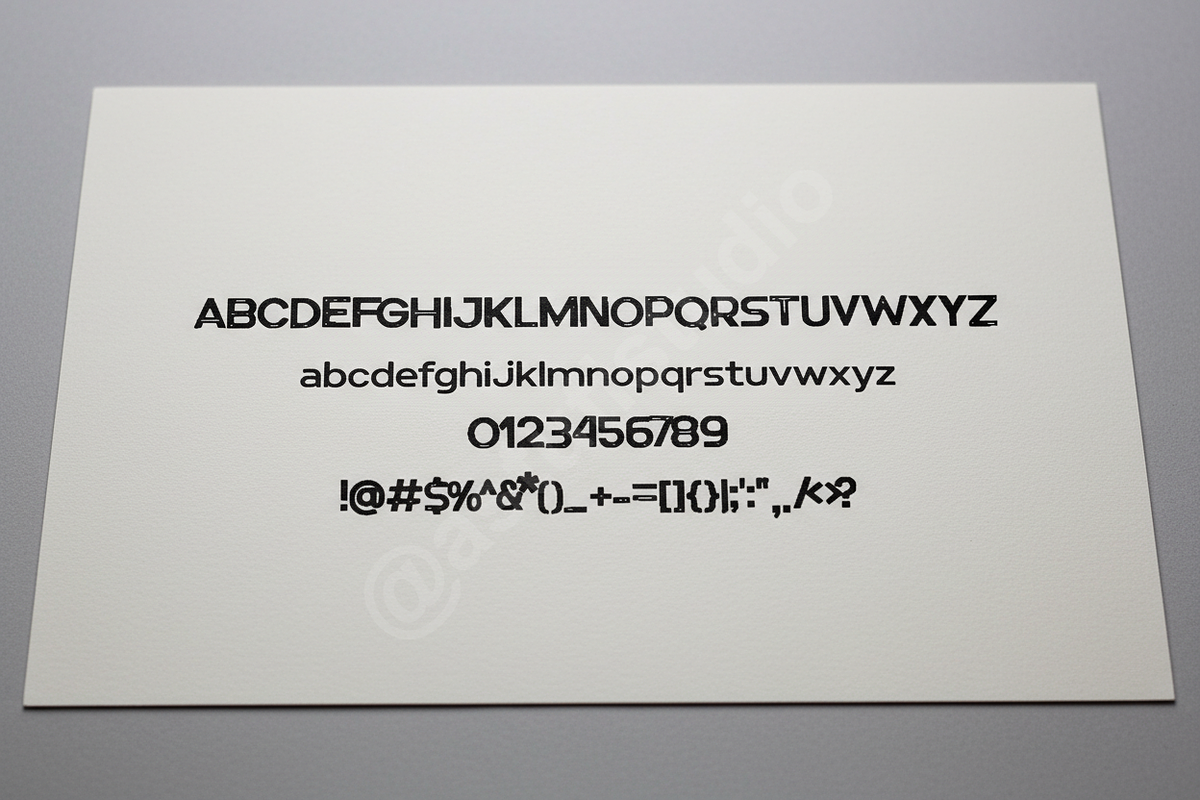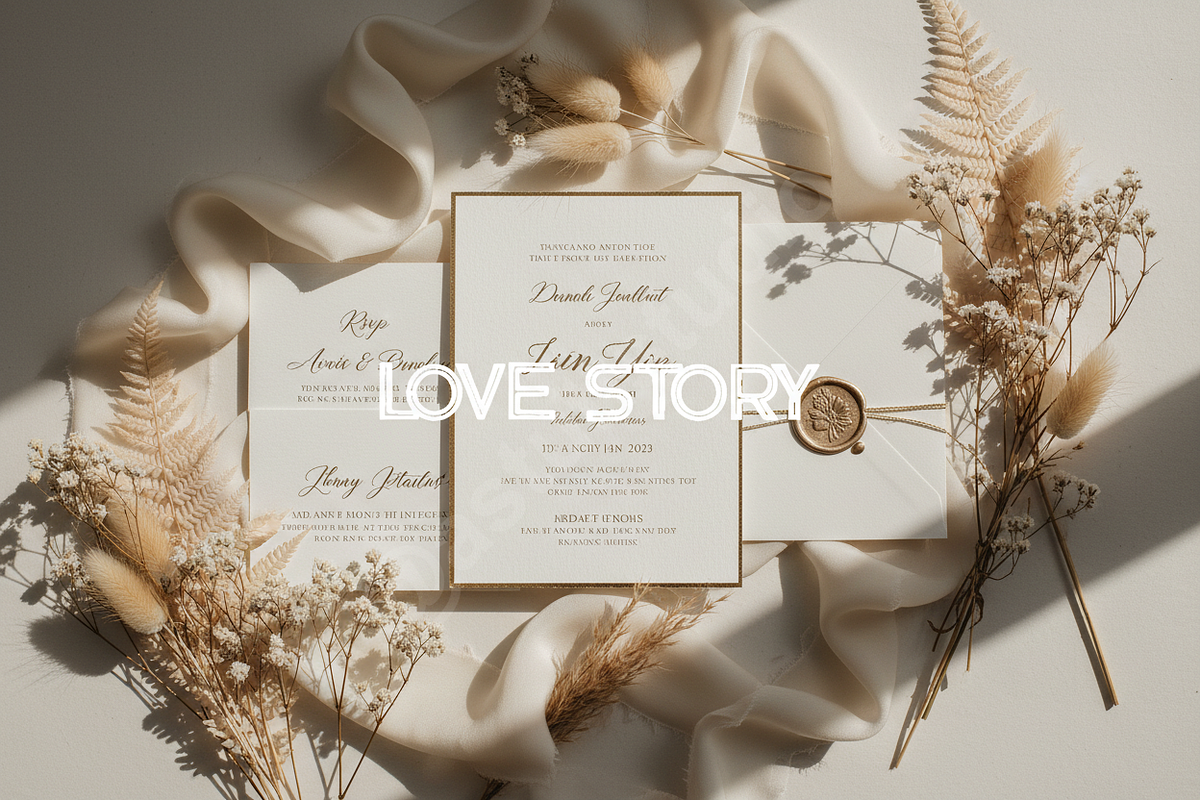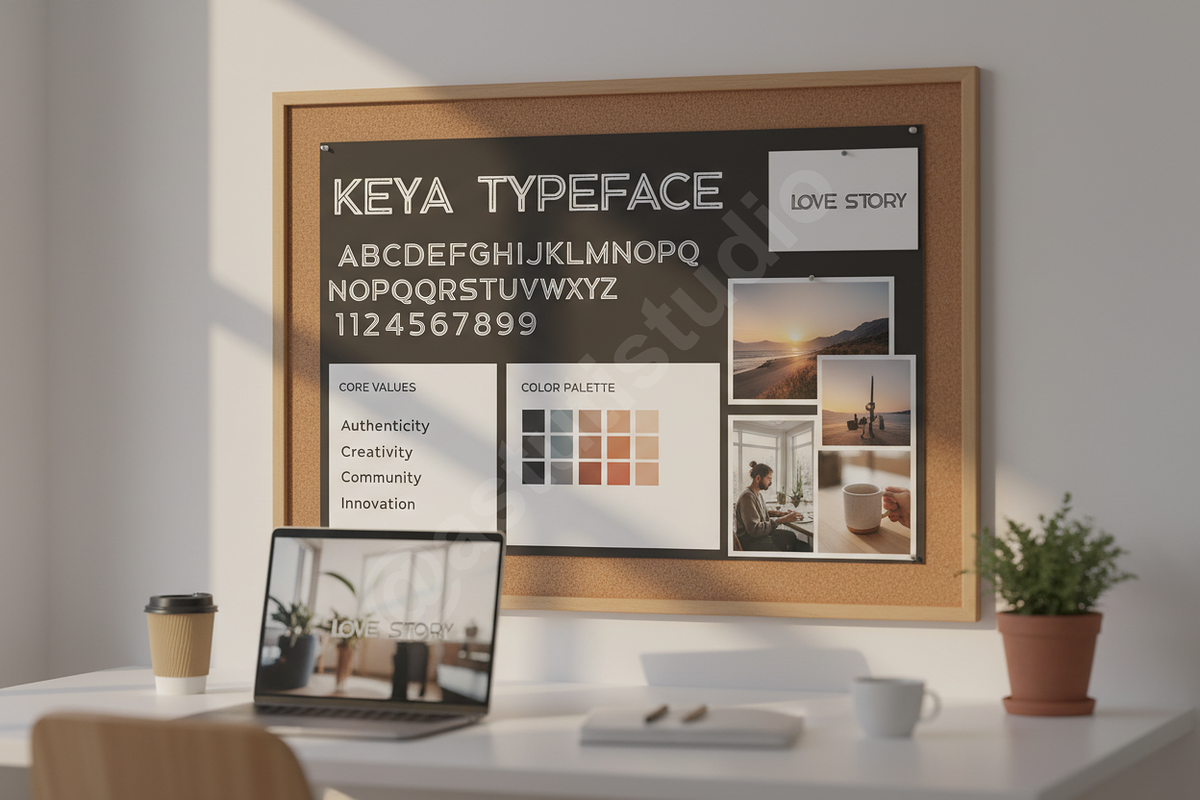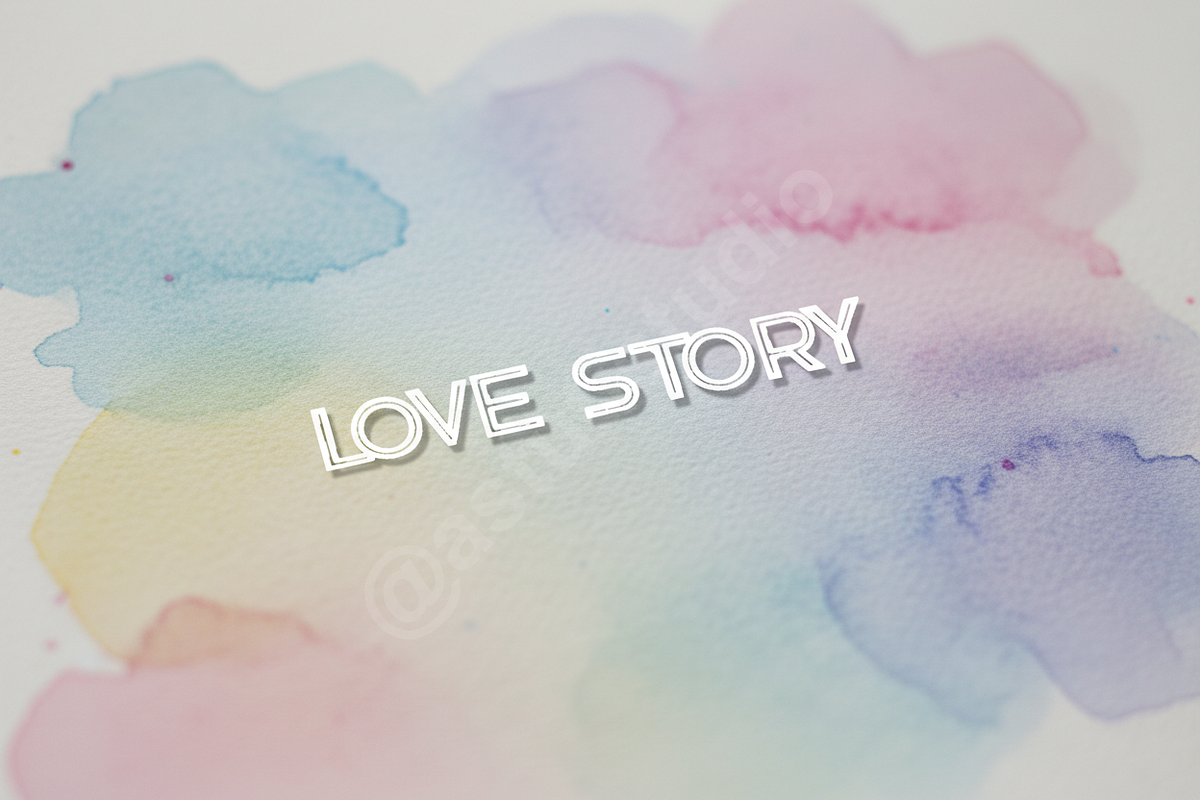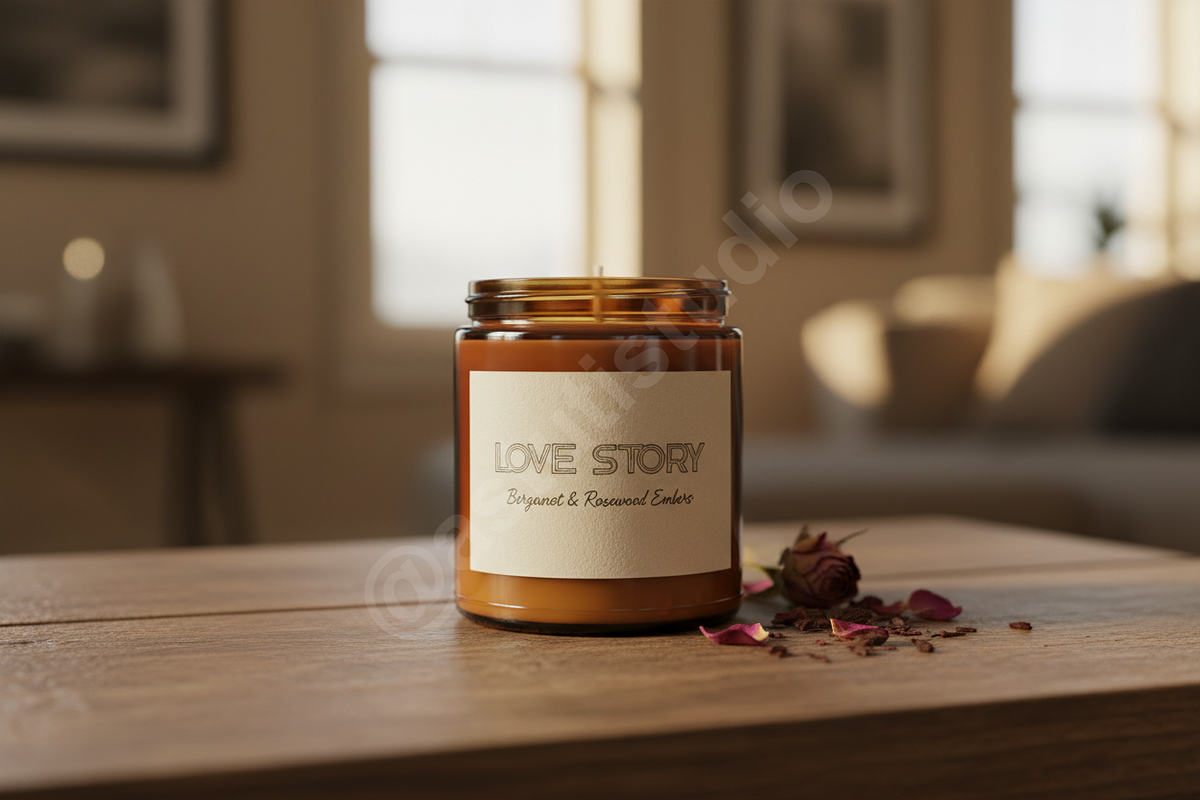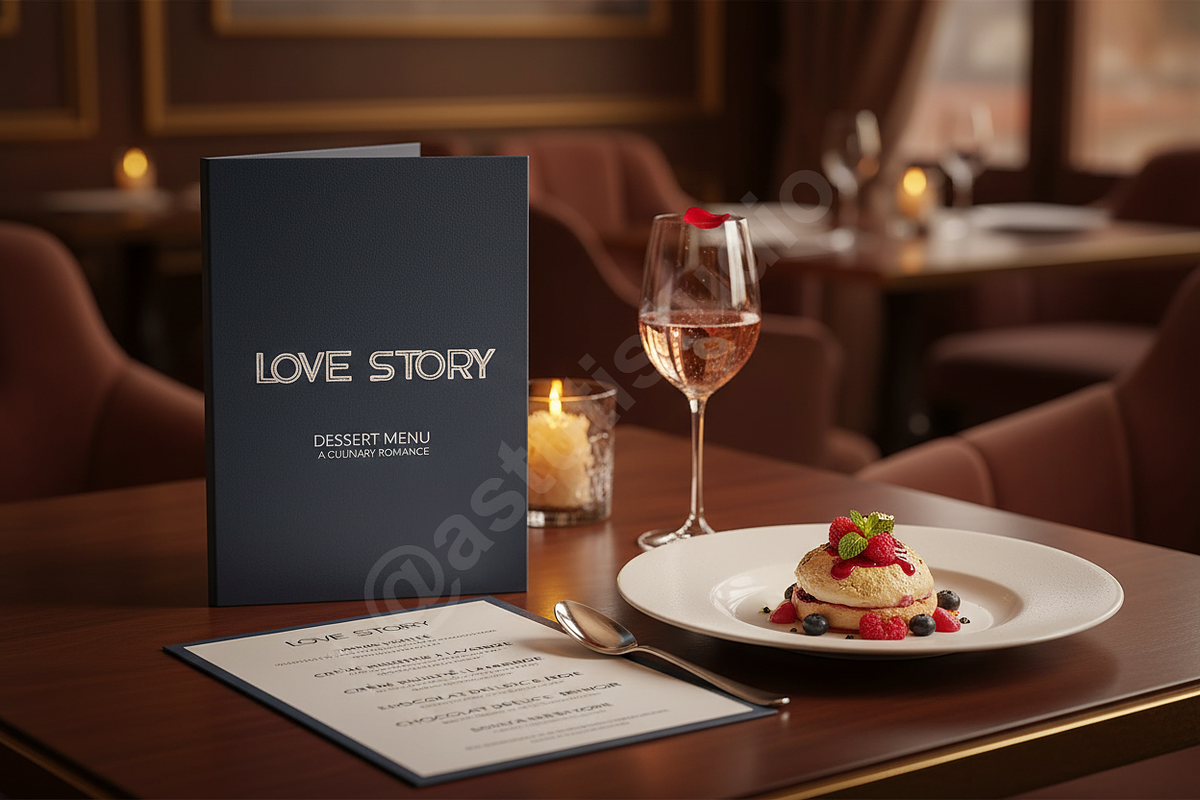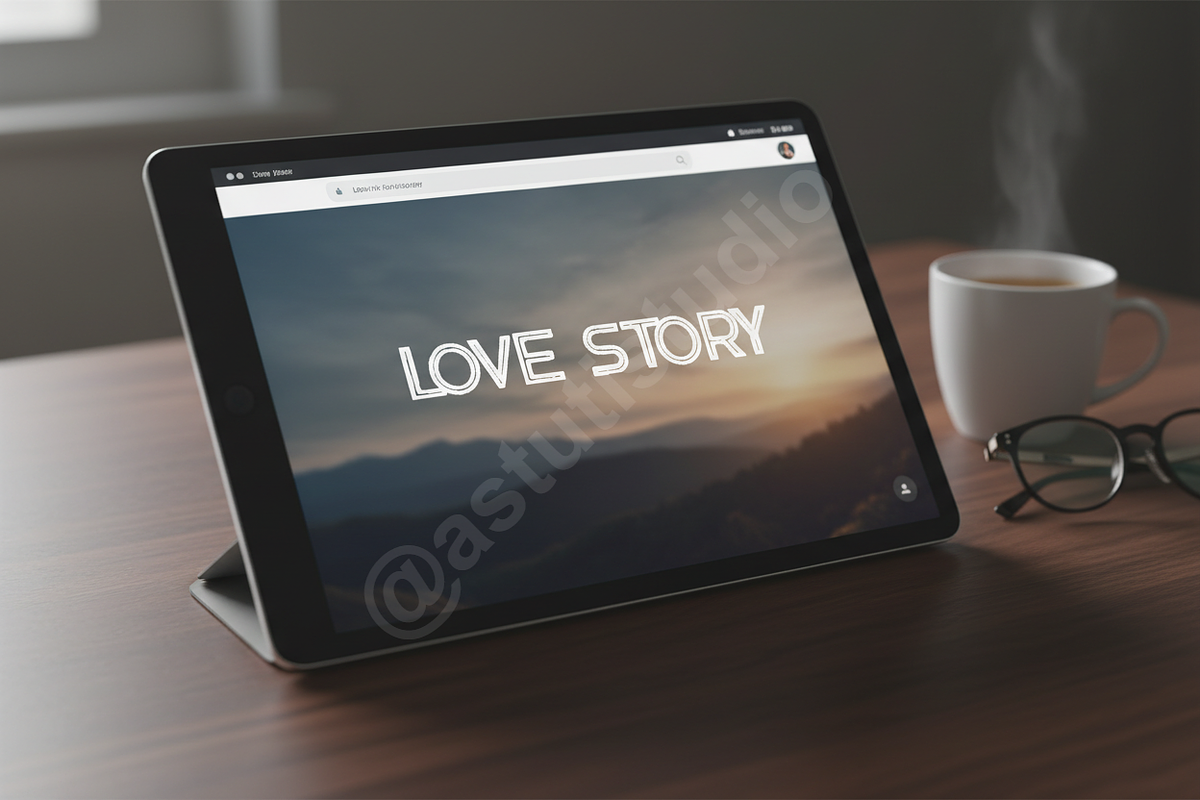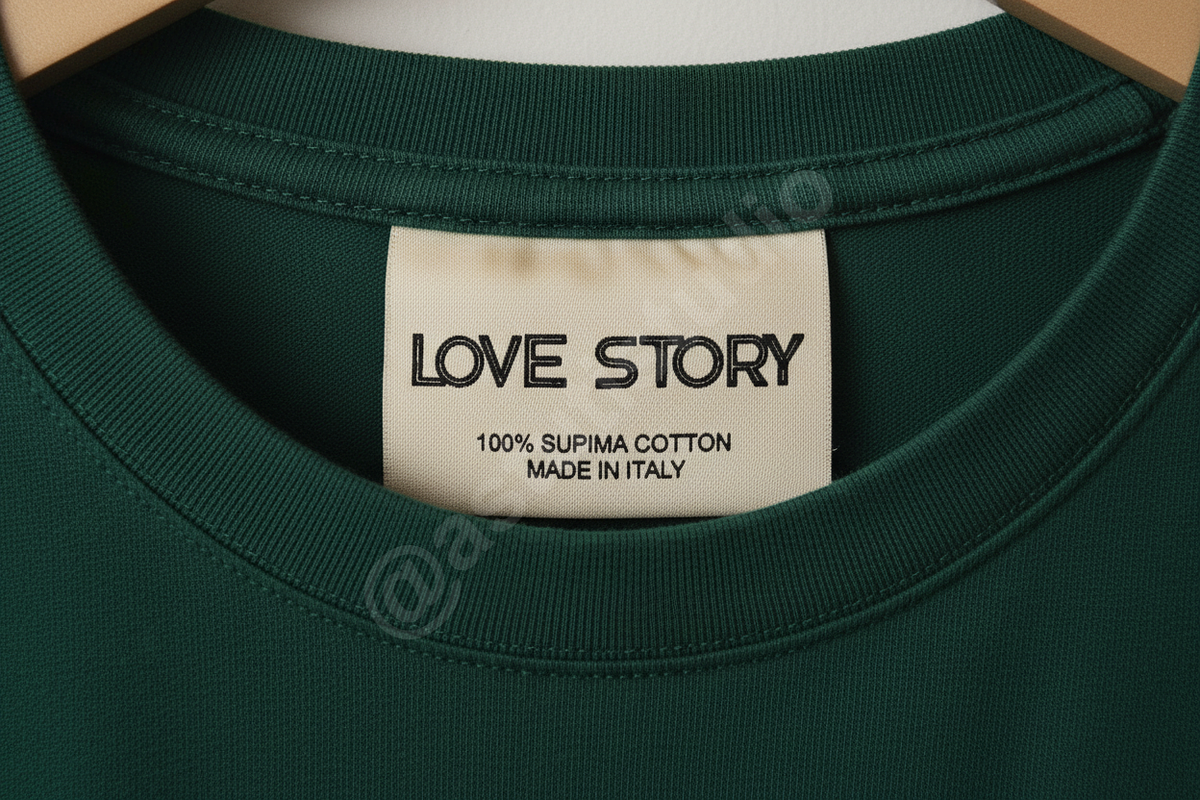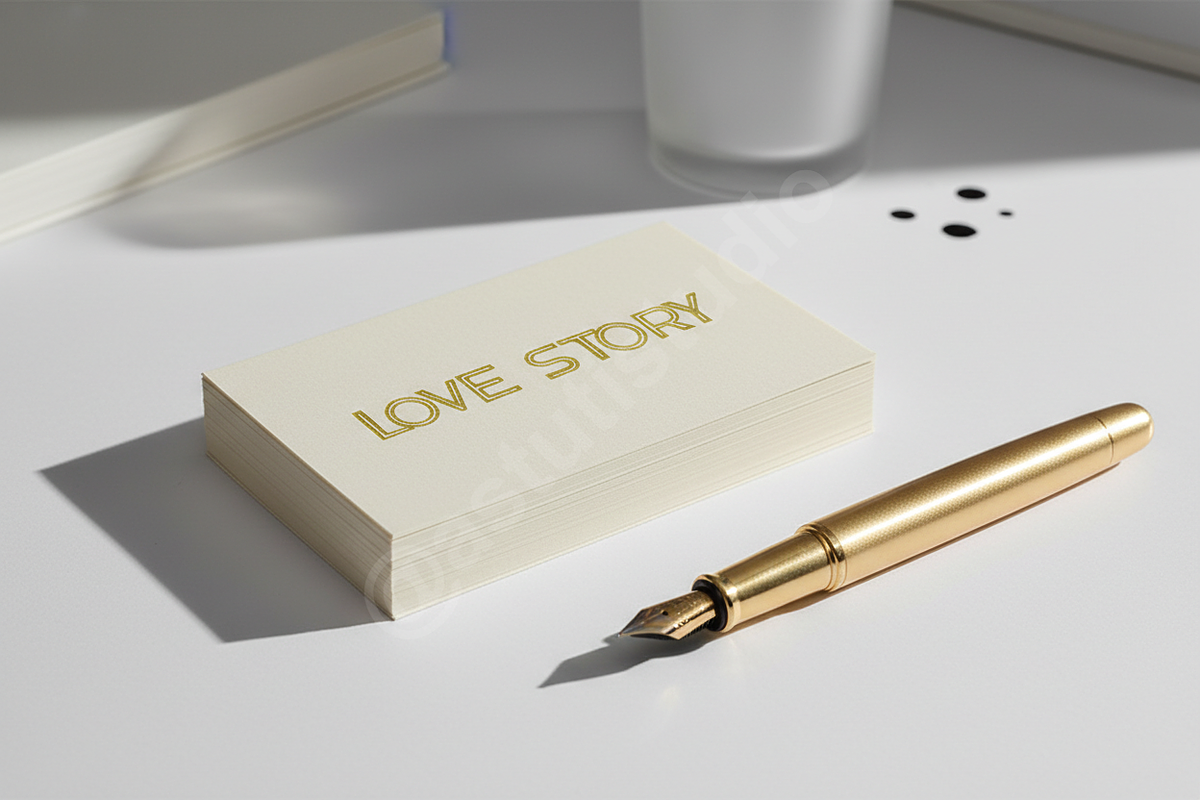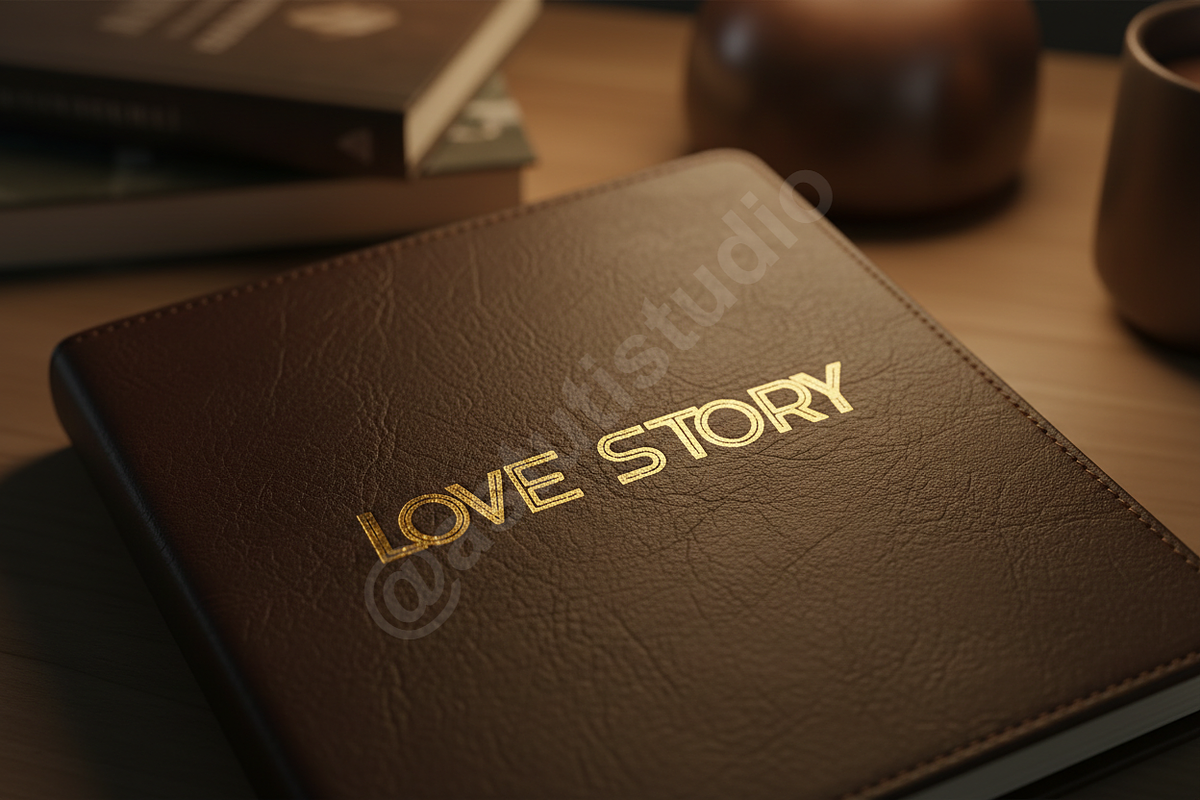
Keya - A Modern Luxury Serif Typefac
INTRODUCTION
Keya is a sophisticated serif typeface meticulously crafted for high-end aesthetics. Inspired by the understated luxury of premium studio branding, Keya offers a perfect balance of sharp serifs and soft curves. It is the ideal choice for designers looking to elevate luxury branding, editorial layouts, and high-fashion social media content.
- Timeless high-contrast design
- Elegant ligatures and alternate characters
- Comprehensive multilingual support
- Precise kerning for a professional finish
- Optimized for both print and web platforms